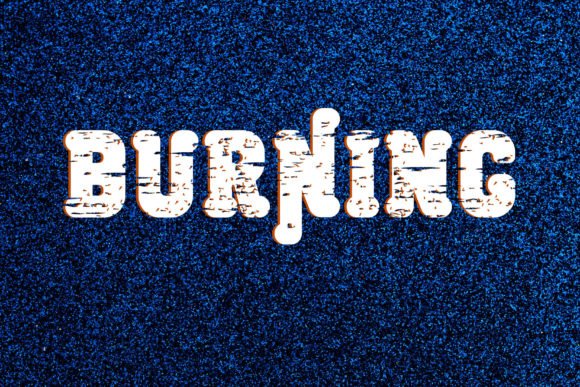
The Perfect Font for Making a Statement
Have you ever been working on a design project, and suddenly you know exactly what’s missing – a font that screams ‘speed’ and ‘power’? I know I have. It’s that moment when everything clicks into place, and you can envision your creation taking off. For me, it was the introduction of the Burning Font, a cool, rough-styled display font that exudes confidence and energy.
The Burning Font is designed to add a touch of assertiveness to your designs, making it perfect for projects related to speed, power, or both. With its PUA encoding, accessing all the glyphs and swashes is a breeze, giving you endless creative possibilities. Whether you’re a seasoned designer or just starting out, this font is a valuable addition to your toolkit, helping you to create bold and eye-catching designs that truly make a statement.
- Font Size: The font size is approximately 1000 glyphs, offering a vast range of characters and symbols for creative expression.
- Unique Characteristics: Burning Font features a distinctive, fiery design with intricate details and textures, making it perfect for projects that require a bold and dramatic look.
- Font Style: The font style is a mix of sans-serif and script elements, creating a dynamic and eye-catching effect that can be used for headings, titles, and other display text.
Burning Font Review
I recently had the chance to experiment with the Burning Font, and I must say it’s been an interesting experience. Here are my thoughts.
- The Burning Font has a unique, fiery aesthetic that’s perfect for projects that need a bold, attention-grabbing look.
- It’s highly customizable, with a wide range of options for adjusting the color, size, and style of the font.
- The font is well-suited for use in graphics, logos, and other visual elements where a dramatic, eye-catching effect is desired.
- The Burning Font can be difficult to read in certain contexts, particularly at small sizes or in situations where the font is not the primary focus.
- While the font is highly customizable, this can also make it overwhelming to use, especially for designers who are new to working with complex typography.
The Burning Font is a great option for designers who need a bold, attention-grabbing font for specific projects. While it may not be suitable for all types of design work, it’s definitely a unique and effective tool to have in your toolkit. With a little practice and patience, you can get the most out of this versatile font.
Burning Font is commonly used in:
- Movie and video game titles.
- Graphic novels and comics.
- Music festival and concert branding.
- Fire-themed designs and graphics